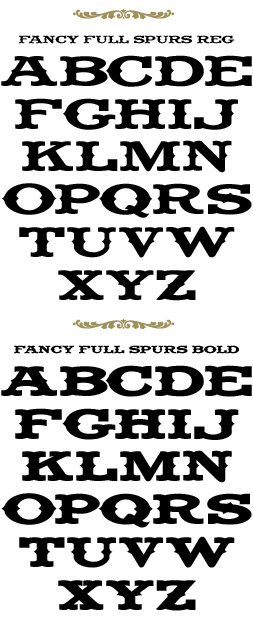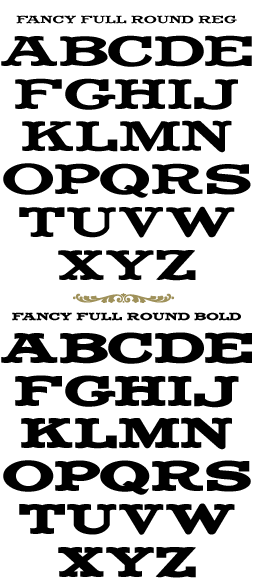
Inspired by Al Imelli, early 1900's. Ideal when an "old west" feel is desired. Set includes 4 fonts: Fancy Full Round Reg, Fancy Full Round Bold, Fancy Full Spurs Reg, & Fancy Full Spurs Bold. Essentially giving you two weights with the option of spurs on the sides or sans-spurs. All fonts contain numbers, full punctuation and accent characters.
Fancy Full Round includes full punctuation
& accent characters